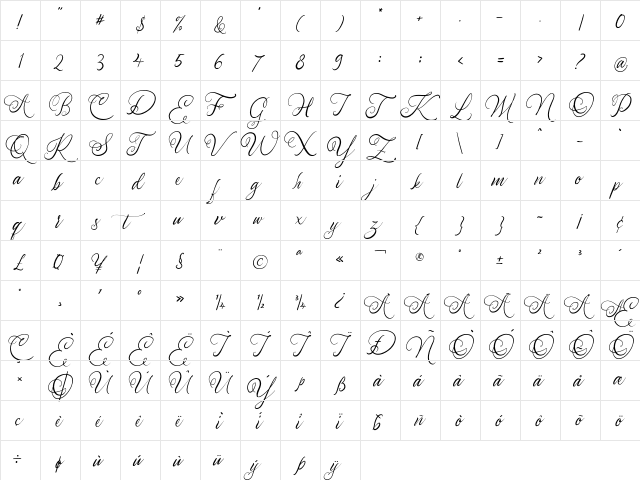
Adolle Bright Regular
| Foundry | dirtylinestudio.com |
| Designer | Hendra Maulia |
Design Context for Adolle Bright Typeface
Adolle Bright is a composed and adaptable typeface that performs quietly and consistently across a wide range of design contexts.